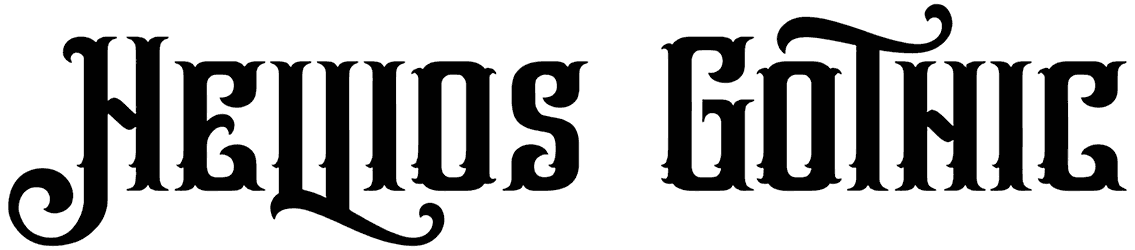
Hellios Gothic Font
If you want a cool and hellish vibe for your texts, take a look at this gothic font. Every character in Hellish Gothic font is designed with bold and pointy characters and giving off a powerful and punk feeling to the reader.
You can use this biker font for any gaming title, fantasy and scary movie headlines, song or album, and any promotional texts or banners. Hellish Gothic can only support capitalized characters.